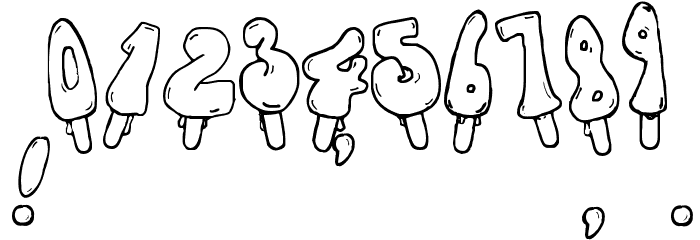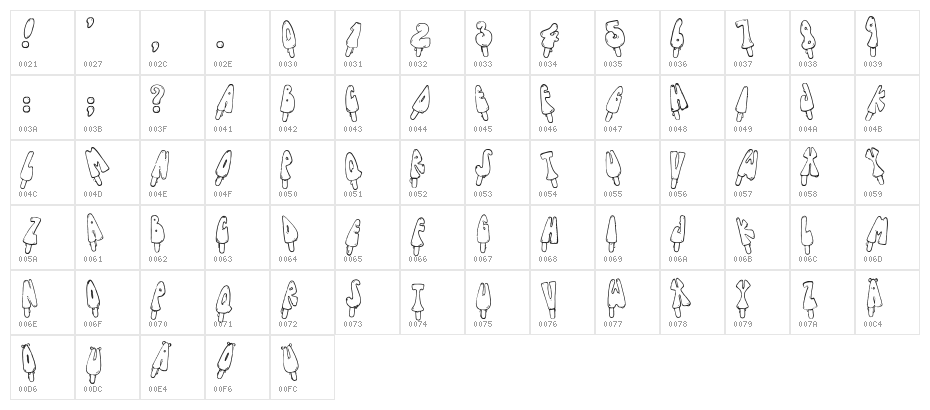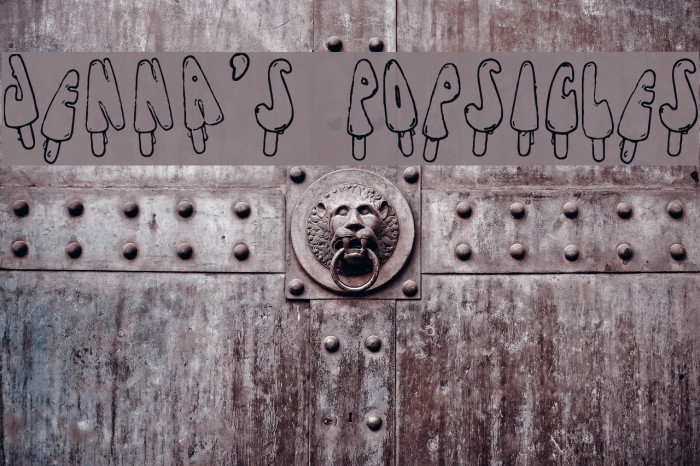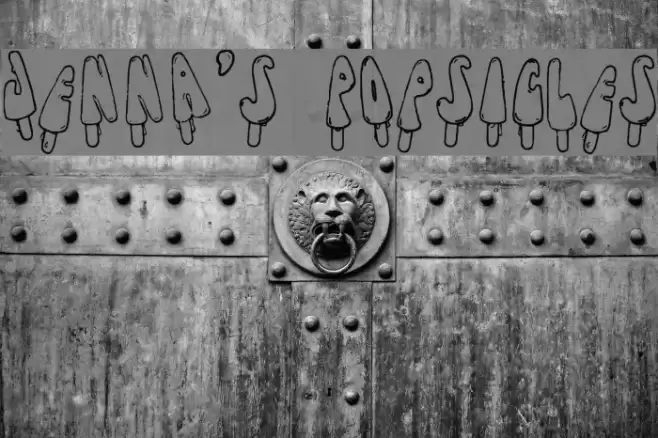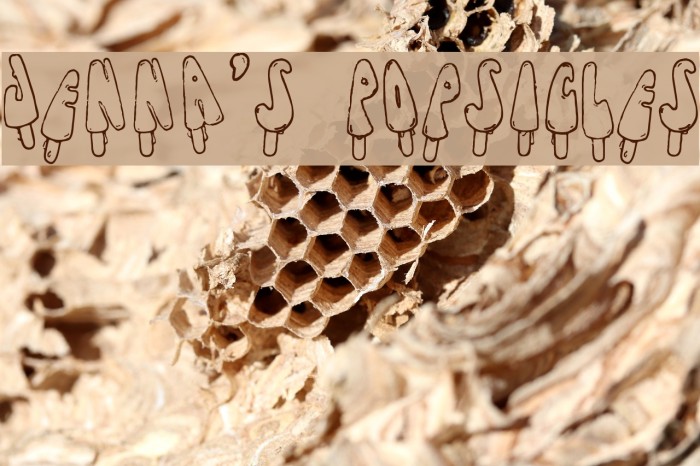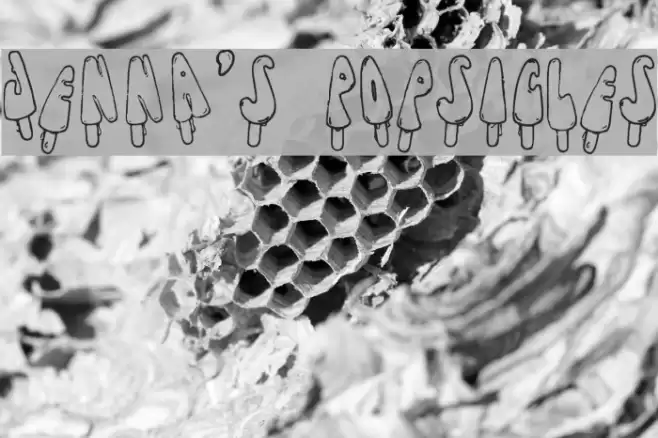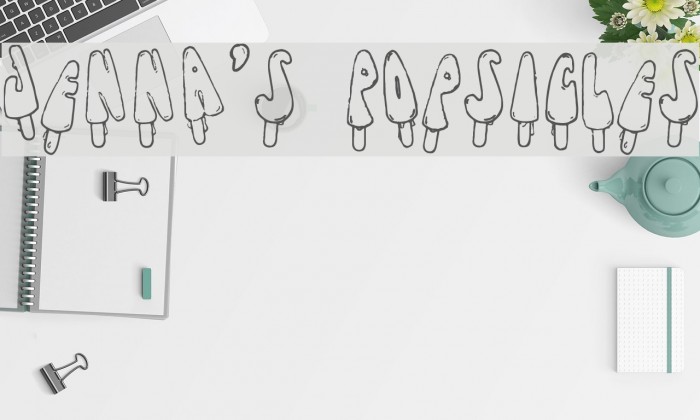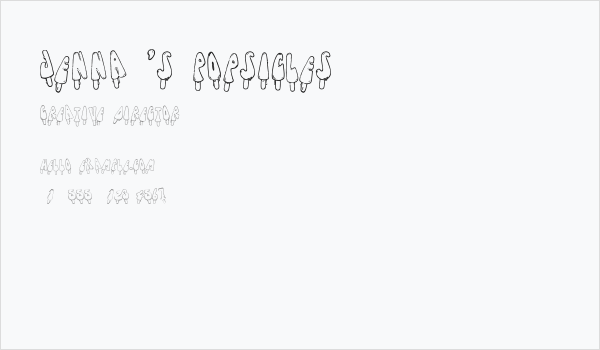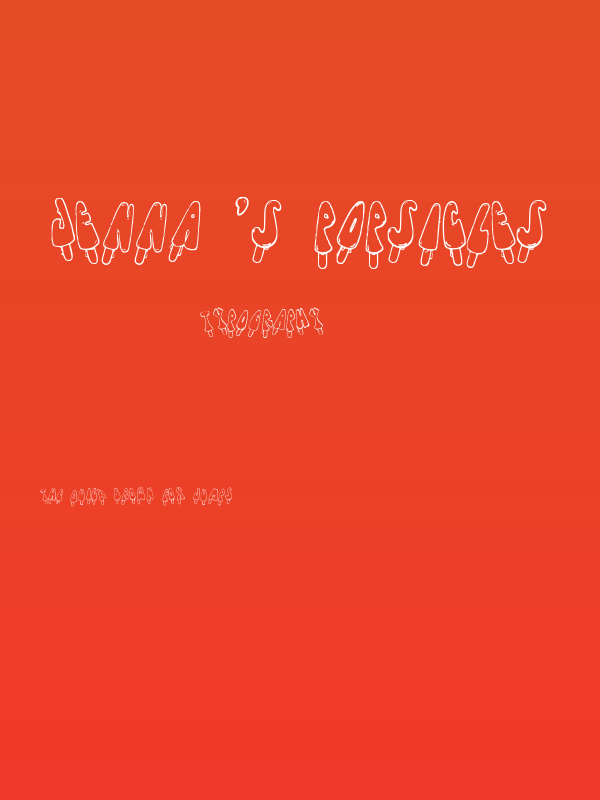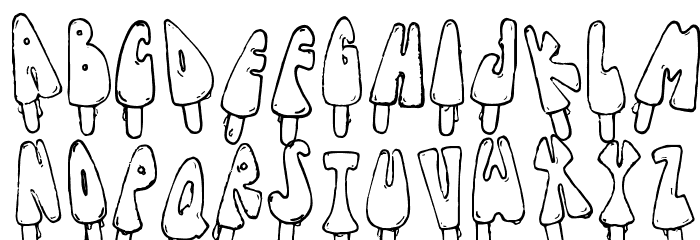
Jenna's Popsicles Font
Jenna's Popsicles Description
This playful and whimsical font features characters designed to resemble popsicles, complete with sticks. The letters are bold and rounded, with a hand-drawn, cartoonish style that adds a sense of fun and creativity. Each character is unique, with slight variations that enhance the playful theme. The font is highly decorative, making it ideal for projects that require a touch of humor and lightheartedness. The overall design is consistent, with a cohesive look that ties all characters together, despite their individual quirks.
| Overall Style | Playful, Whimsical, Fun |
| Proposed Projects | Ideal for children's book covers, summer event posters, playful branding, and ice cream shop signage. |